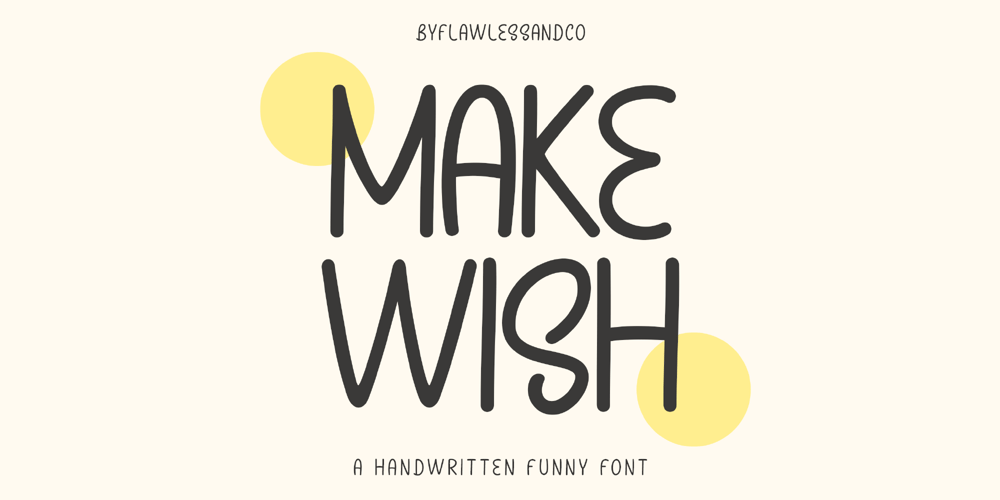
Make Wish Font Family was designed by Achmad Yani and published by Flawlessandco. Make Wish contains 1 styles and family package options. Make Wish is a Handwritten Funny Font. Unleash a burst of laughter and lightheartedness with “Make Wish,” a delightful handwritten font that adds a touch of humor and playfulness to your designs.There’s some connected letters and some alternates that suitable for any graphic designs.This font support for some multilingual. Also contains uppercase A-Z and lowercase a-z, alternate character, numbers 0-9, and some punctuation.If you need help, just write me! Thanks so much for checking out my shop!